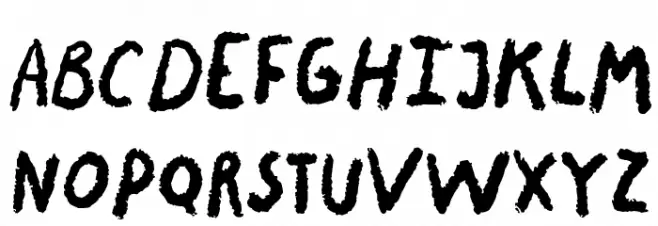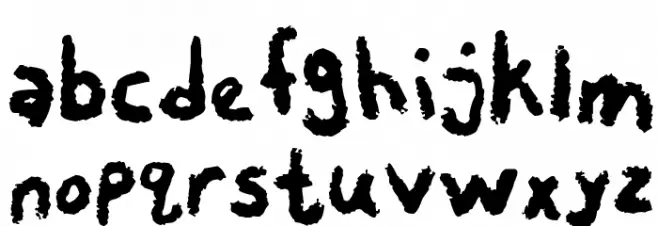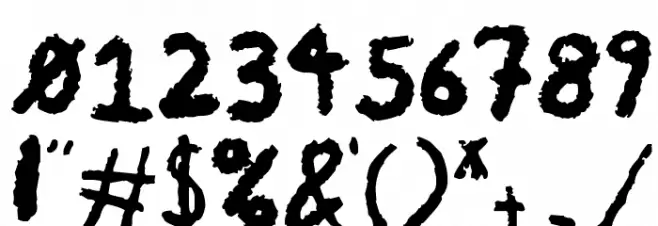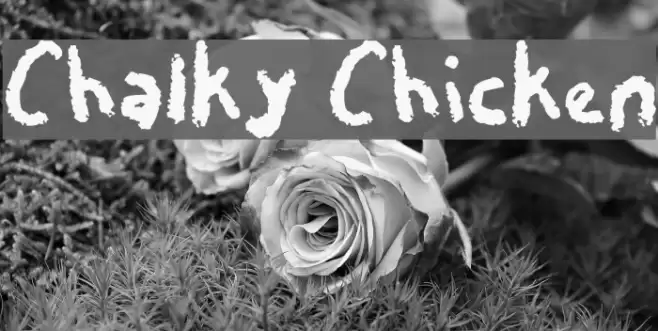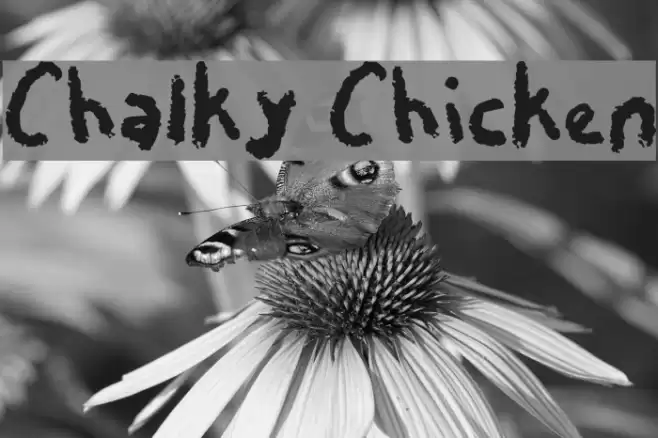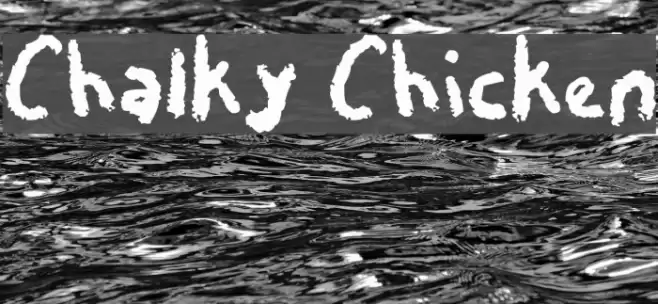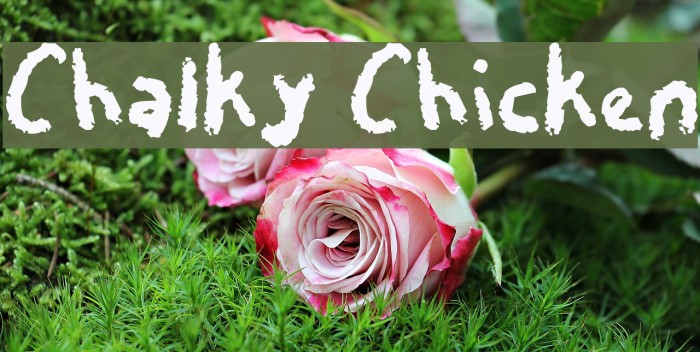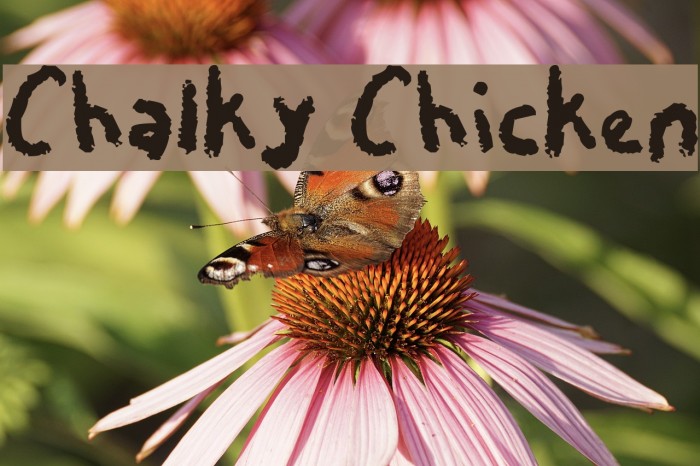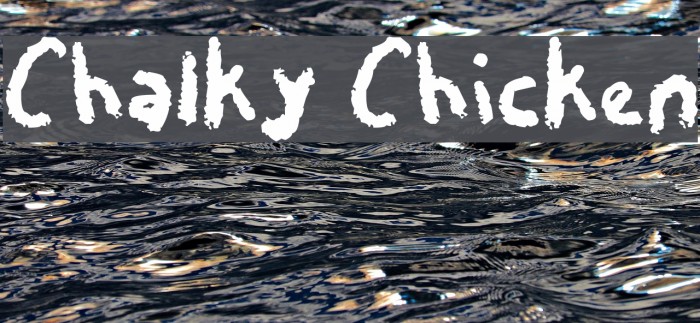
Chalky Chicken Font
Chalky Chicken Description
This font exudes a playful and artistic vibe, reminiscent of chalk writing on a blackboard. The characters are bold and slightly irregular, giving them a hand-drawn appearance. The uppercase and lowercase letters maintain a consistent style, with rounded edges and a textured finish that mimics the effect of chalk. Numbers and special characters follow the same design principles, ensuring a cohesive look across all glyphs. This font's unique texture and informal style make it stand out, adding a touch of creativity and fun to any project.
A playful, chalk-like font with a hand-drawn, textured appearance.
- Proposed Projects: Ideal for educational materials, children's books, playful branding, and creative posters.